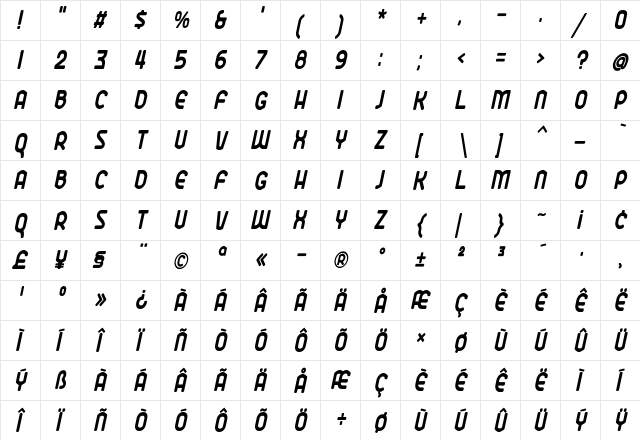
Ekela Round Bold Condensed Italic Font Preview
| Foundry | Audry Kitoko Makelele |
| Designer | Audry Kitoko Makelele |
Design Context for Ekela Typeface
Ekela uses gentle rounded endings to create a warm, inviting typographic personality — less corporate than geometric sans, more refined than playful display fonts. The dynamic lean of this cut emphasises speed and emphasis in any layout. Its bold stroke weight gives it real presence on the page.
Well-suited to UI design, mobile interfaces, and any brand that wants approachability without sacrificing clarity.
Font Pairing: Pairs well with a rounded or humanist sans for body copy, maintaining the friendly tone without relying on Ekela to carry extended reading.
Pro Tip: Use Ekela for UI elements, app interfaces, and anywhere a friendly, approachable tone needs to be maintained without sacrificing clarity.